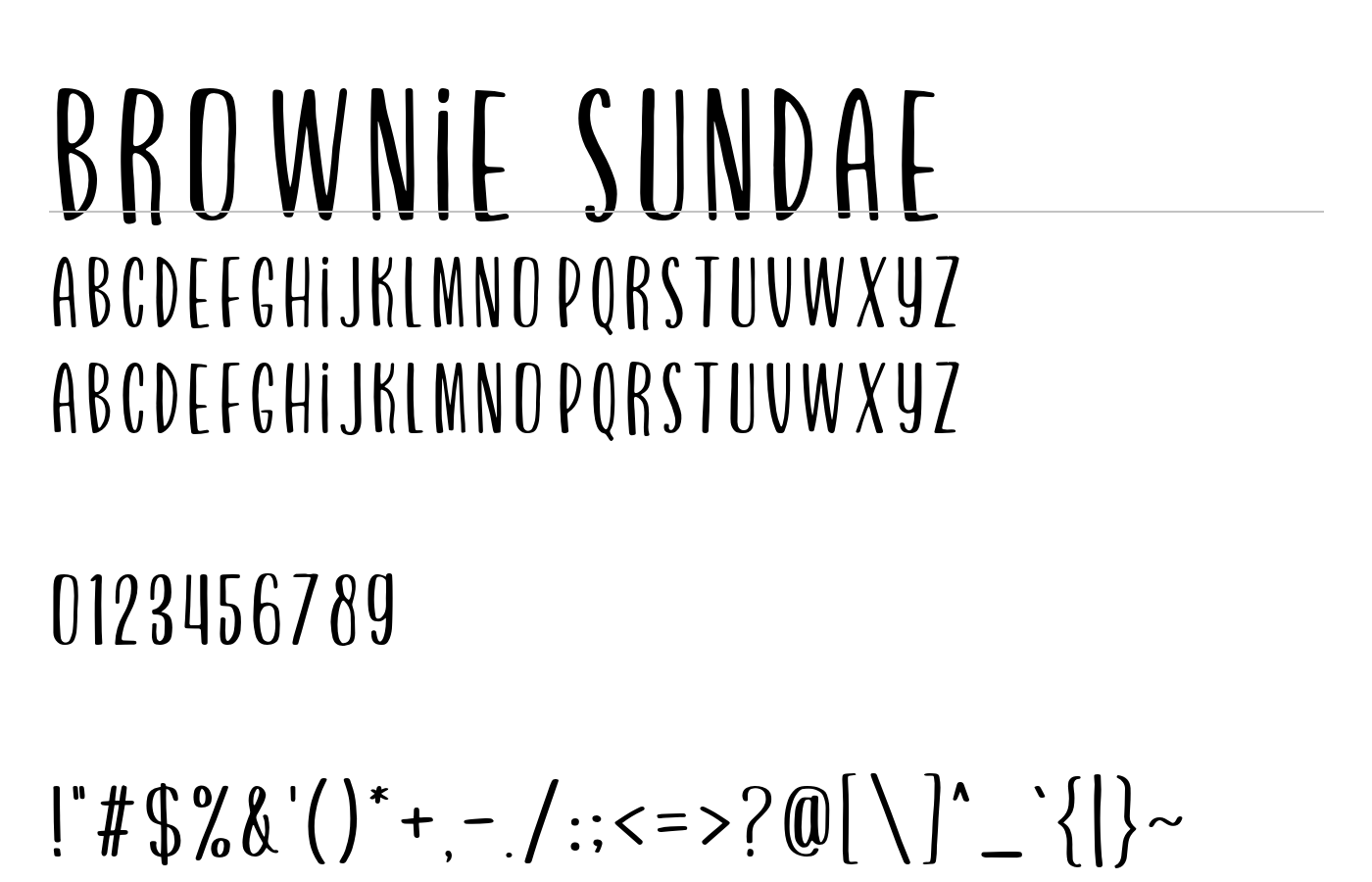
Brownie Sundae is a tall, narrow sans serif font with a playful and casual character. Its thin, slightly irregular strokes give a hand-drawn feel that works well for fun, lighthearted designs, making it ideal for creative branding, invitations, or informal headlines. This font's unique charm lends a friendly, approachable vibe that's perfect for projects seeking a whimsical yet clean look.
Brownie Sundae Font
About Brownie Sundae Font
| Font family | Brownie Sundae Font |
| Designer | Rangga Singgih Subekti |